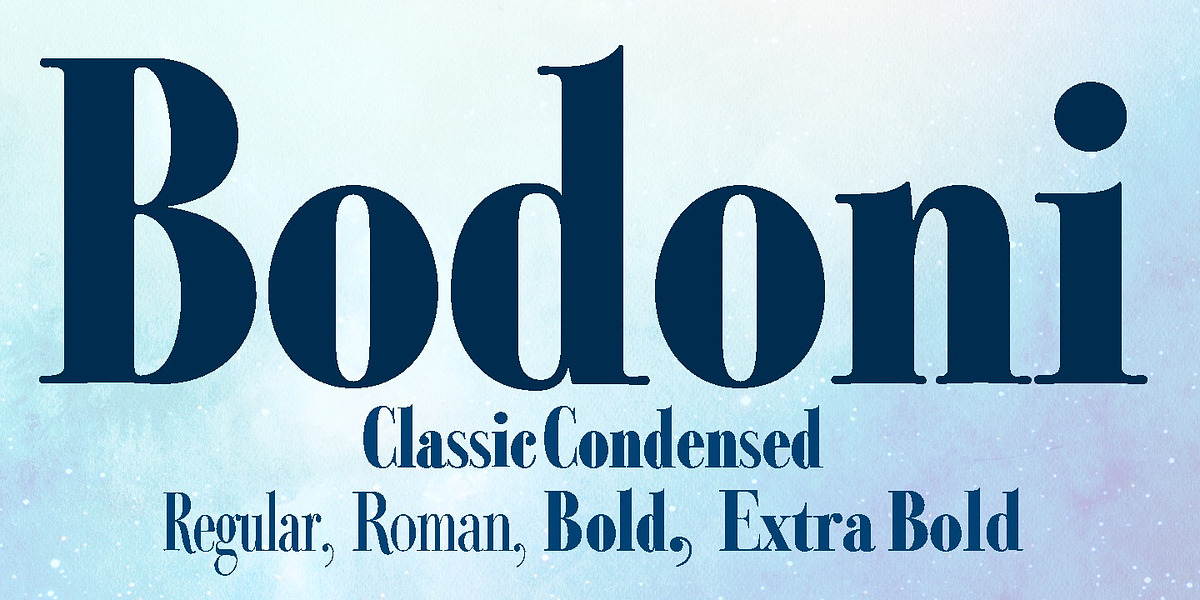
Bodoni Classic Condensed
Bodoni Classic Condensed is a serif typeface designed by Gert Wiescher. It's inspired by the work of Giambattista Bodoni and features high contrast between thick and thin strokes, along with ball terminals characteristic of the didone style. The condensed width makes it suitable for headlines, branding materials, and publishing.